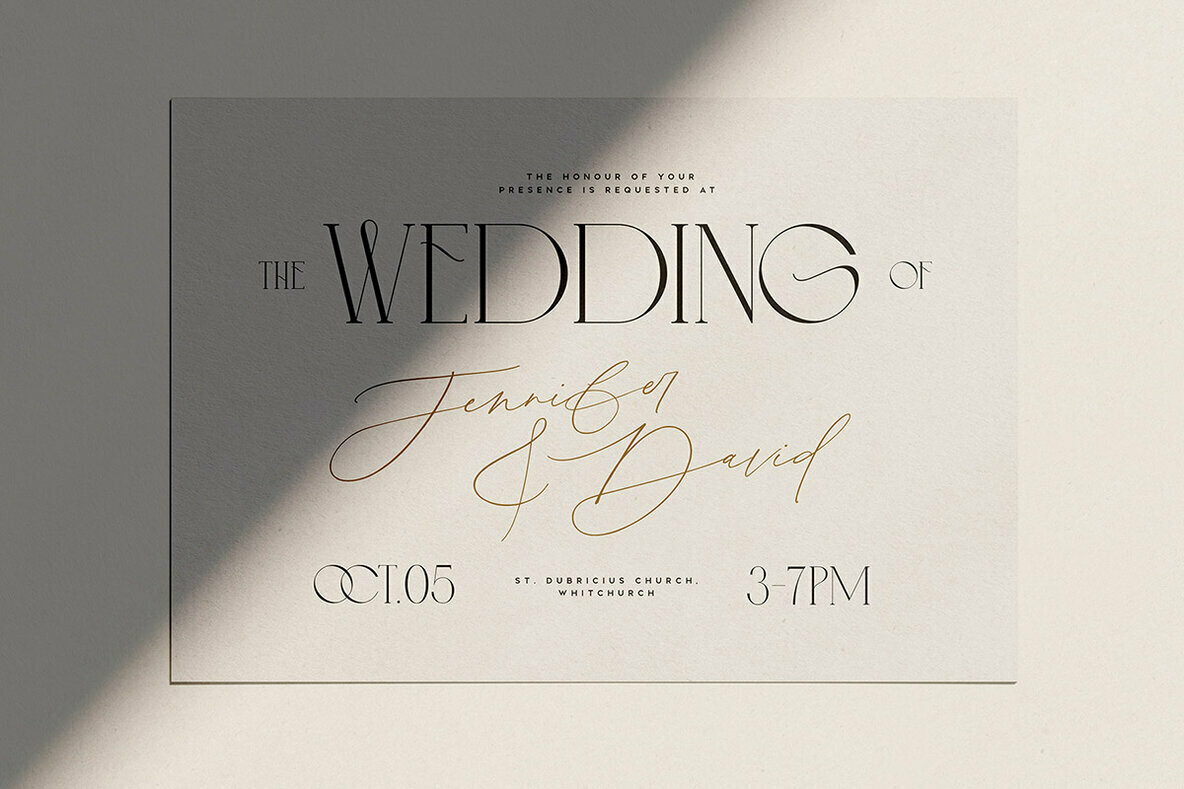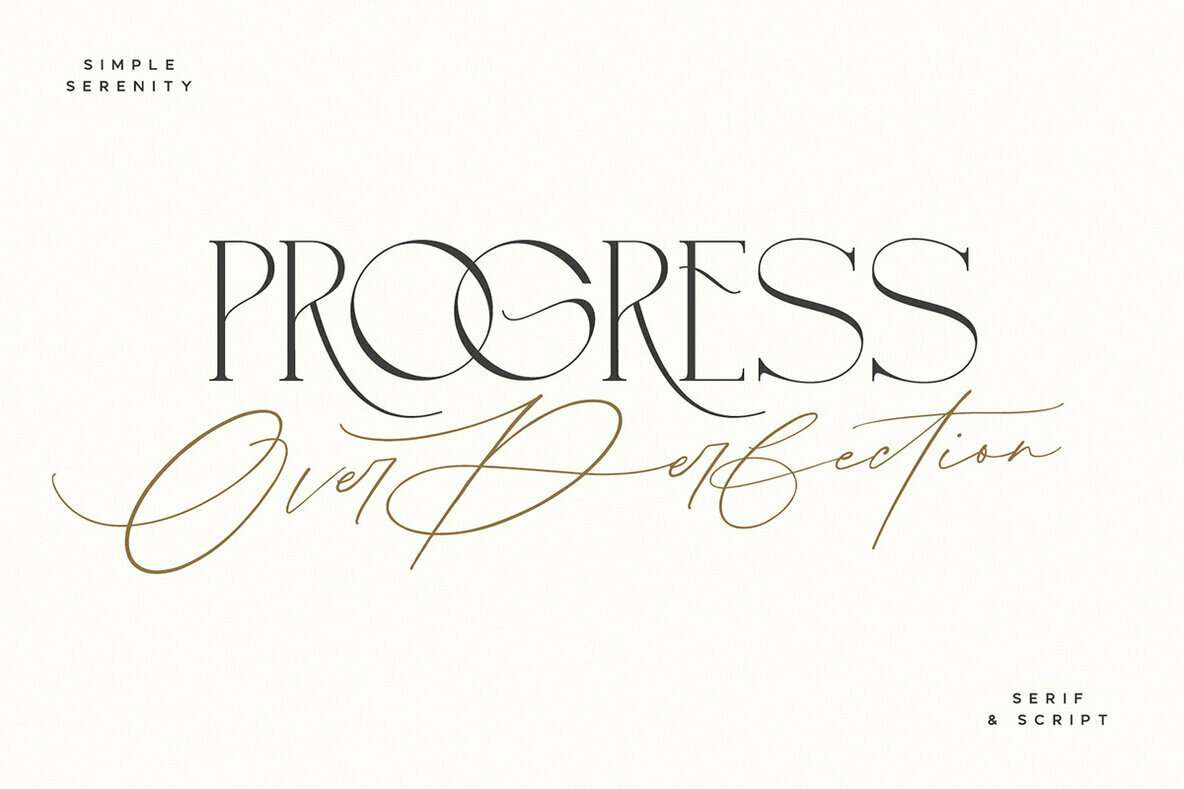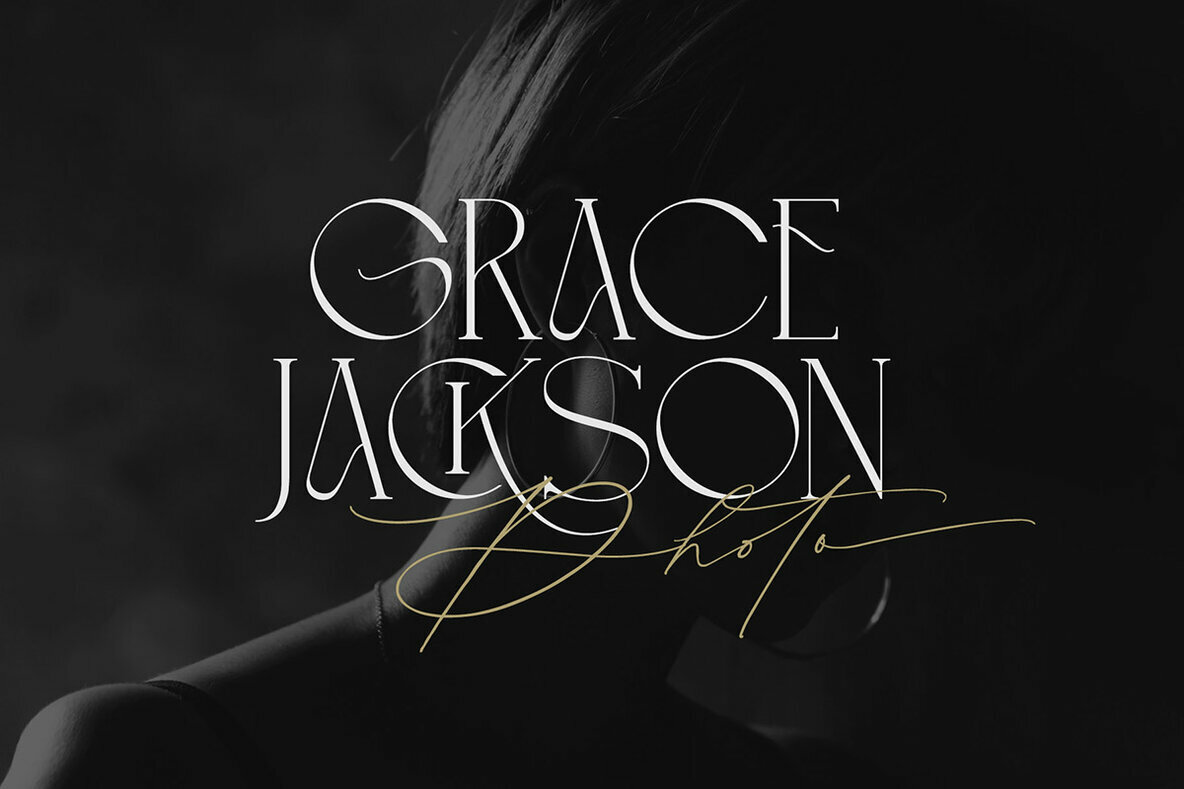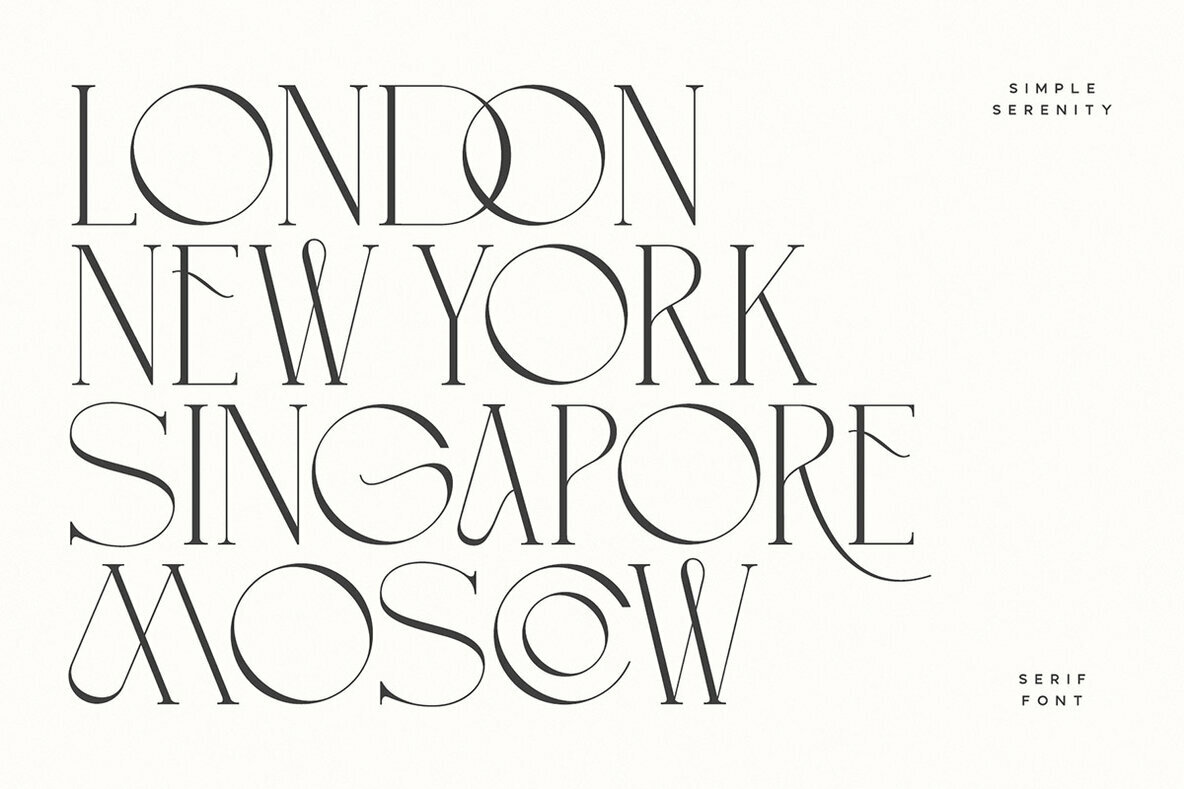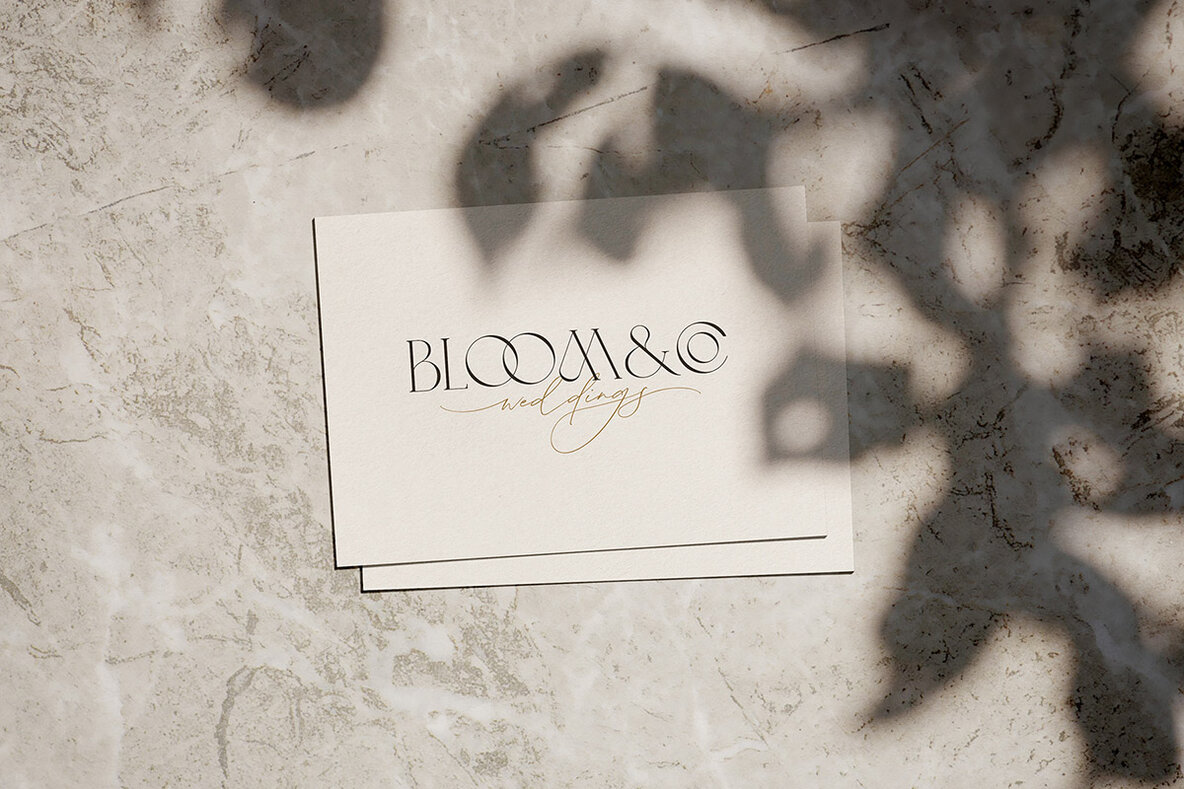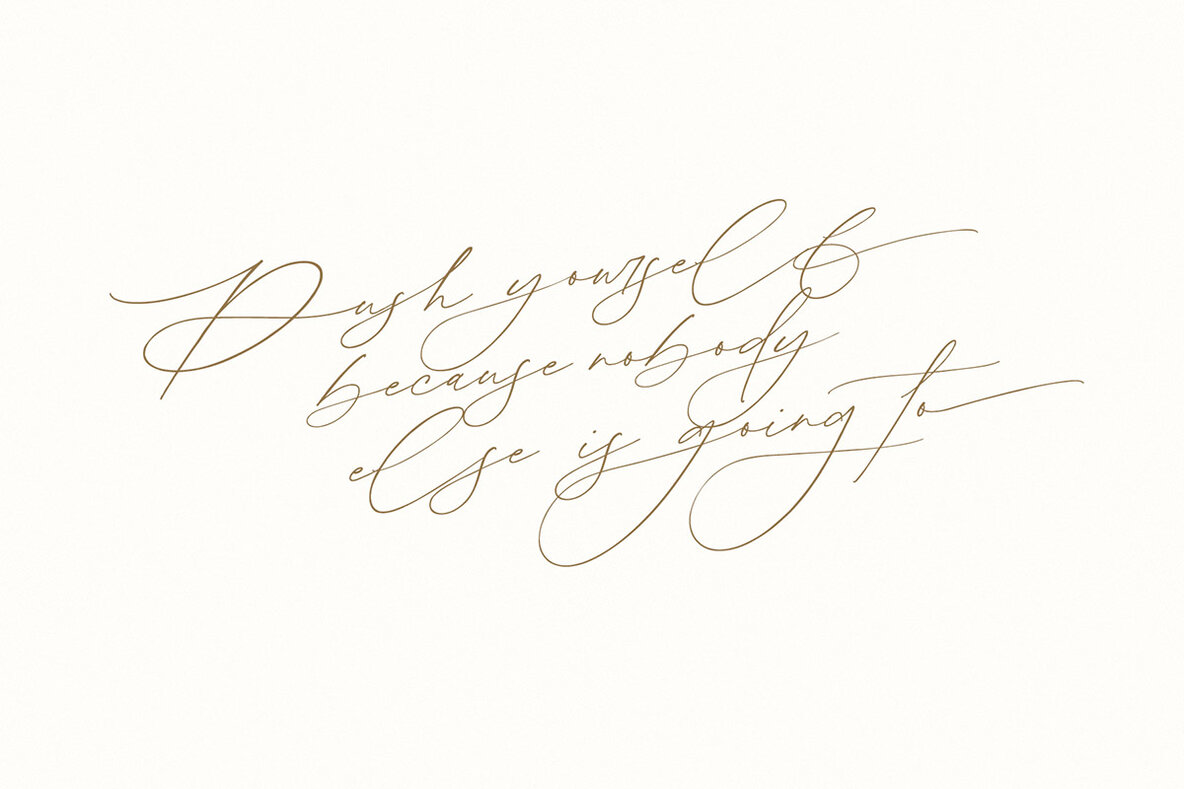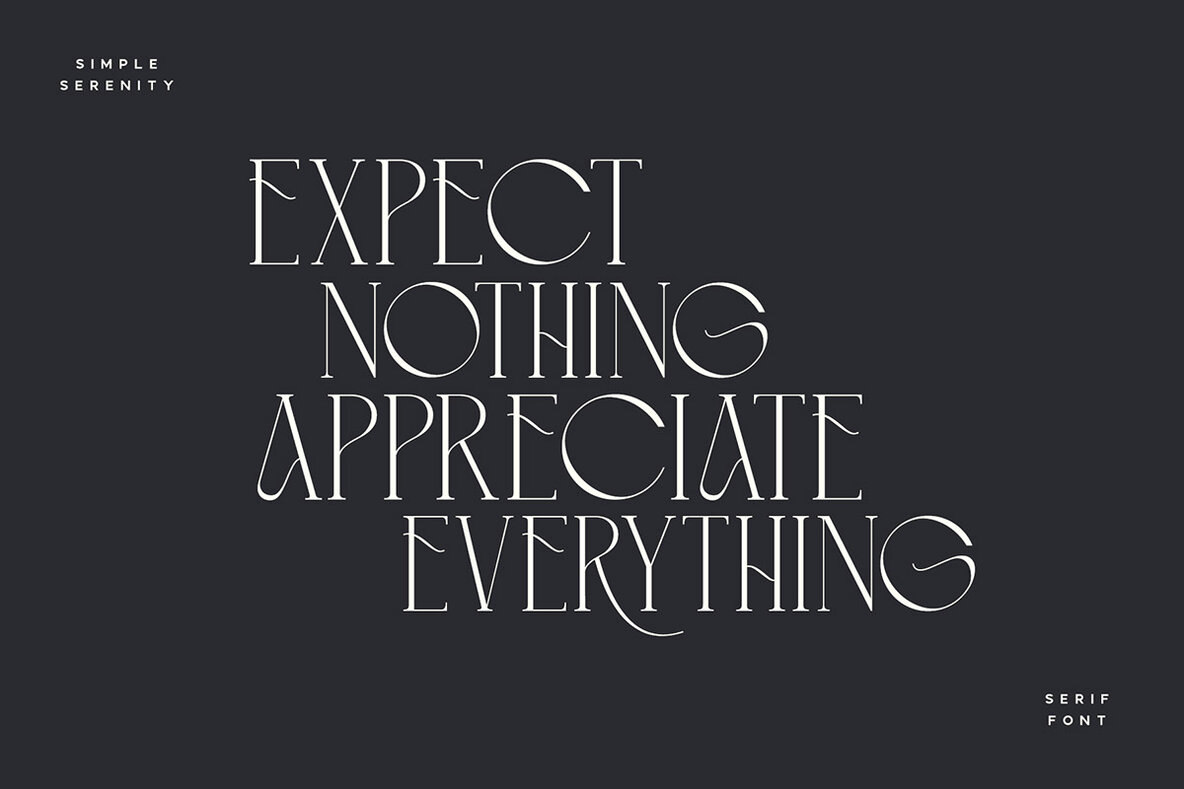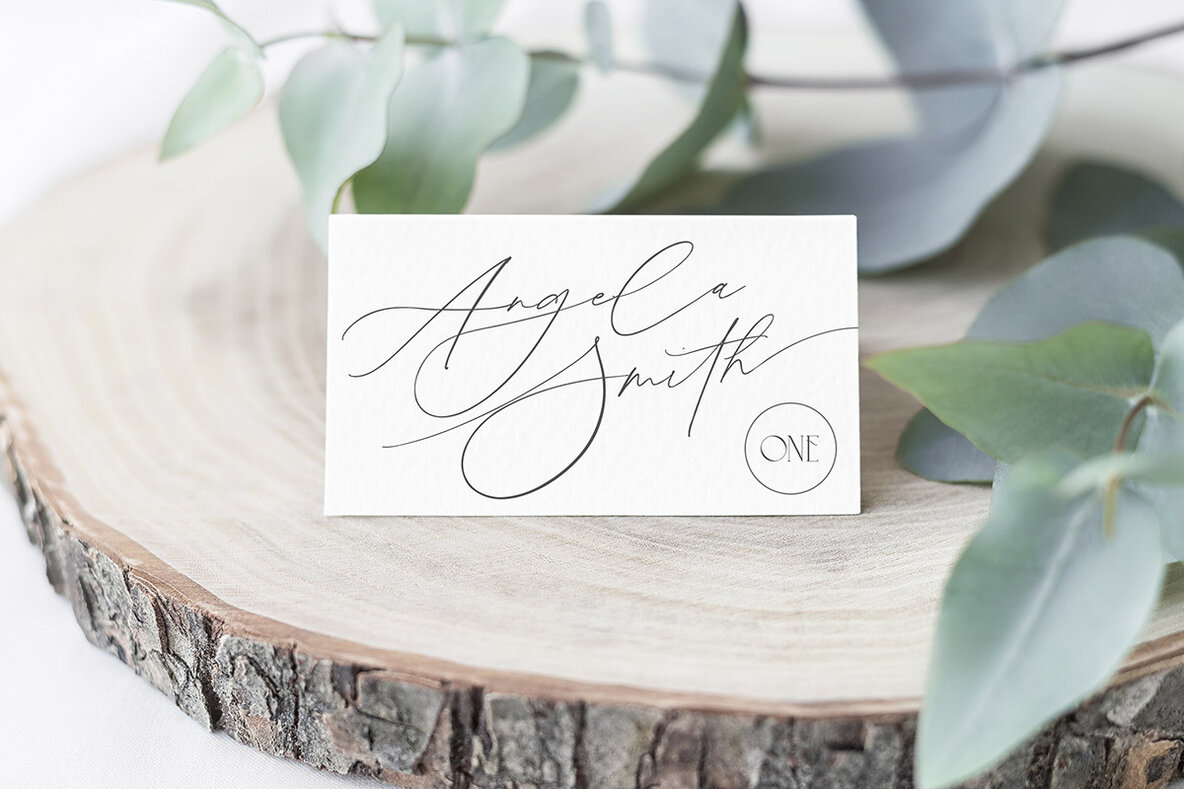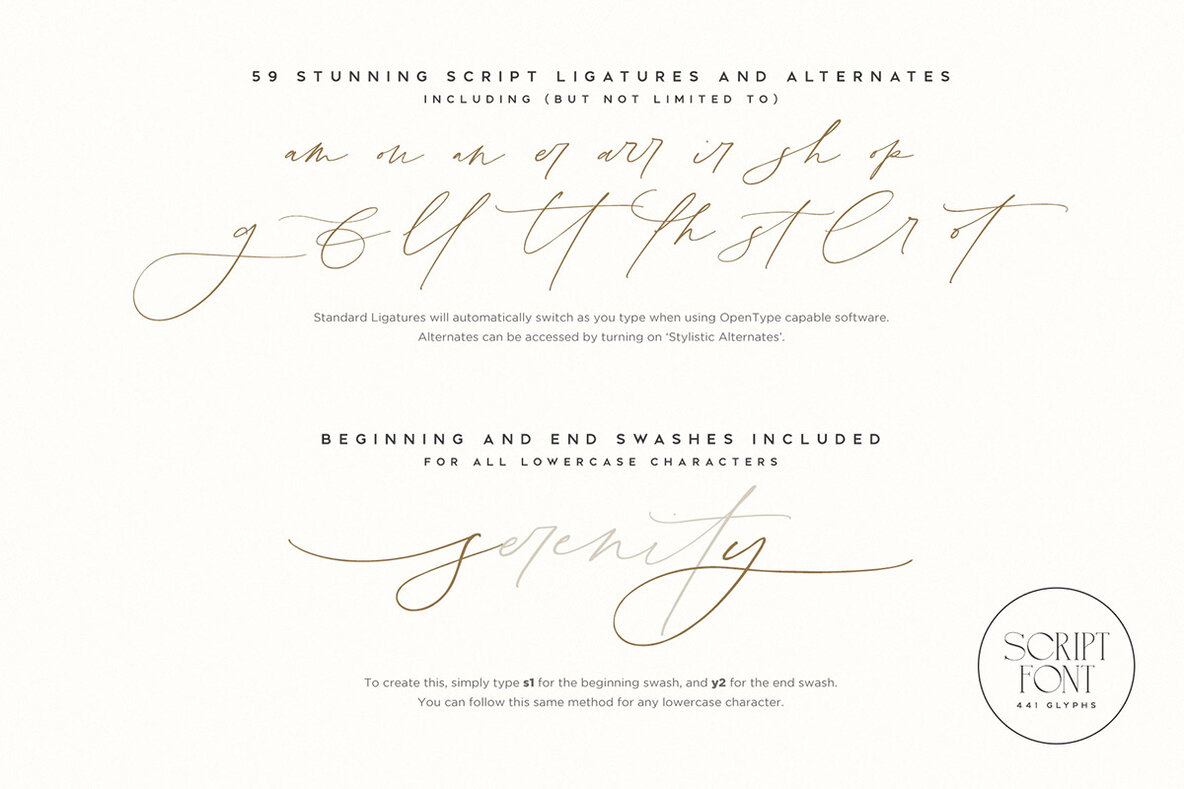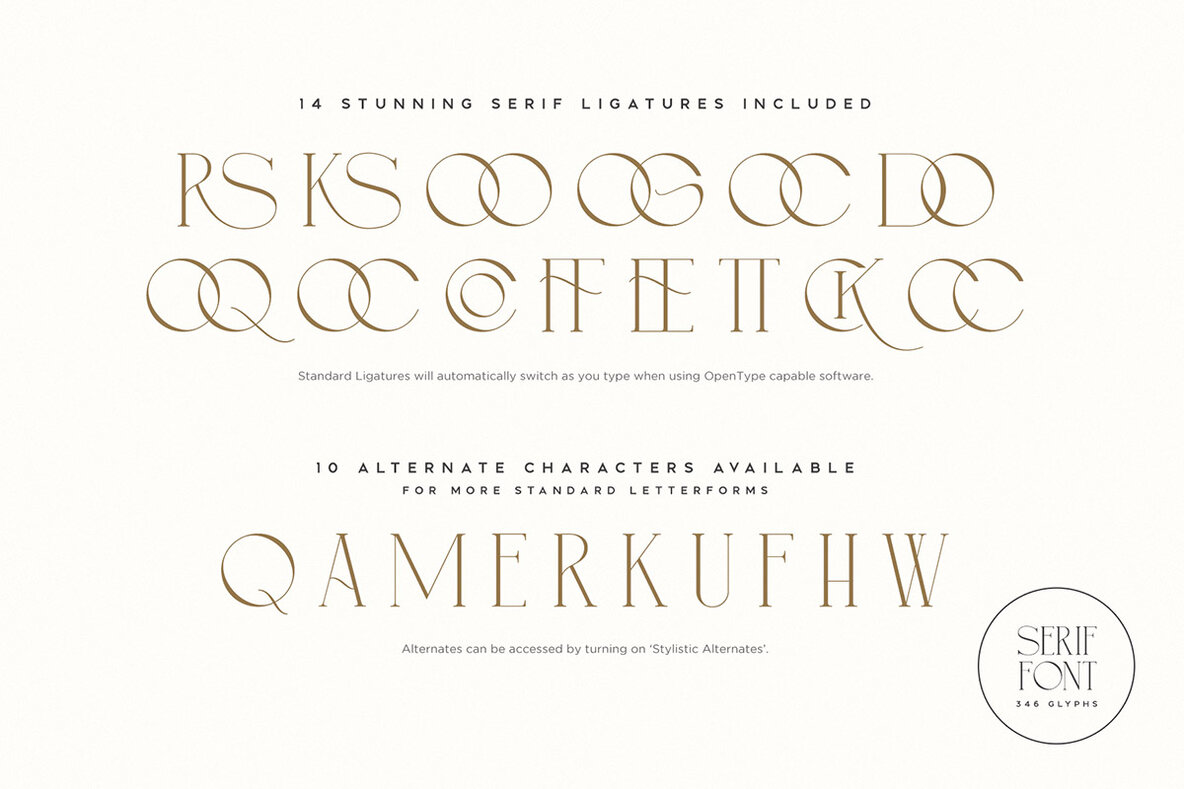
Simple Serenity Font
Discover an exquisitely elegant modern typography pairing with the Simple Serenity Font Duo. This beautiful set combines a contemporary take on a classic serif with a clean & modern fine calligraphy script—creating the perfect pair for stunning logos, wedding designs, quotes, display text and more.
This font family includes:
Simple Serenity Script • A clean, elegant hand-drawn script font containing upper & lowercase characters, all punctuation and numerals. Contains 50 ligatures to help the text flow naturally and add a custom-made feel. Includes 9 alternate characters for d,k,f,g,h,i,j,t,y which have extra flourishes. Also includes beginning and end swashes for every lowercase letter.
Simple Serenity Serif • A modern take on a classic serif font. Contains uppercase-only characters, all punctuation & numerals. Includes 14 ligatures for extra flair and uniqueness, as well as 10 alternate characters for Q,A,M,E,R,K,U,F,H,W.
Both fonts contain a number of 'Standard Ligatures' (unique double-letter pairings) and 'Stylistic Alternates' (alternative letter designs) to provide you with more customisation options. Make sure these functions are switched on in your software in order to access these characters.